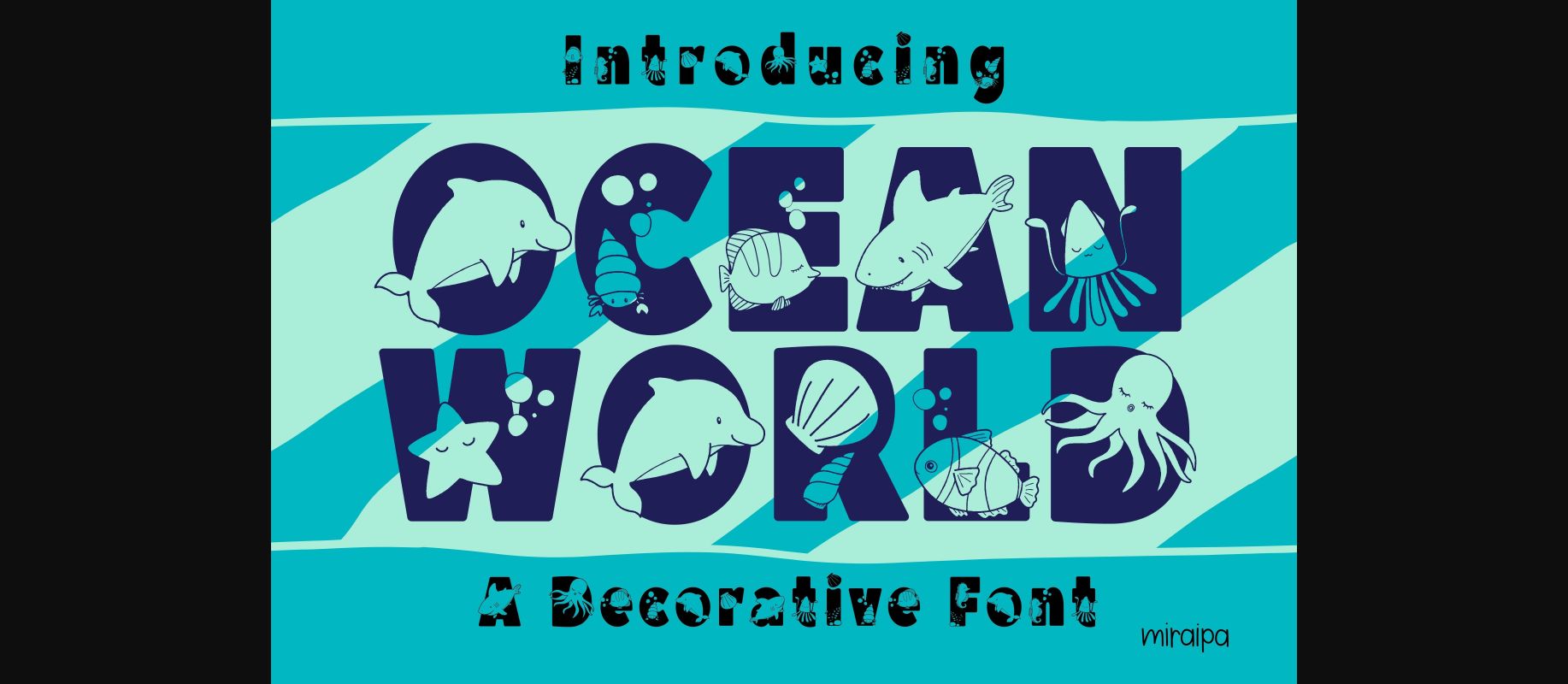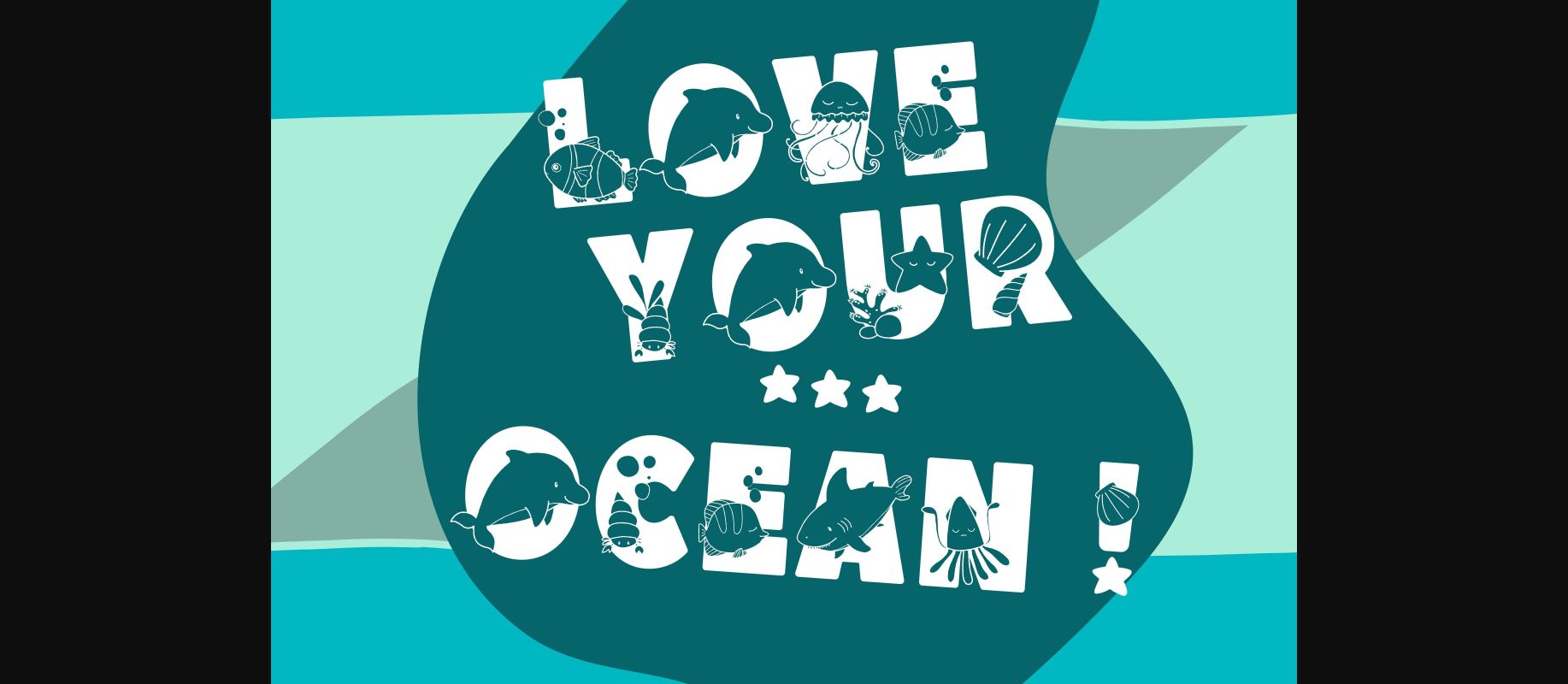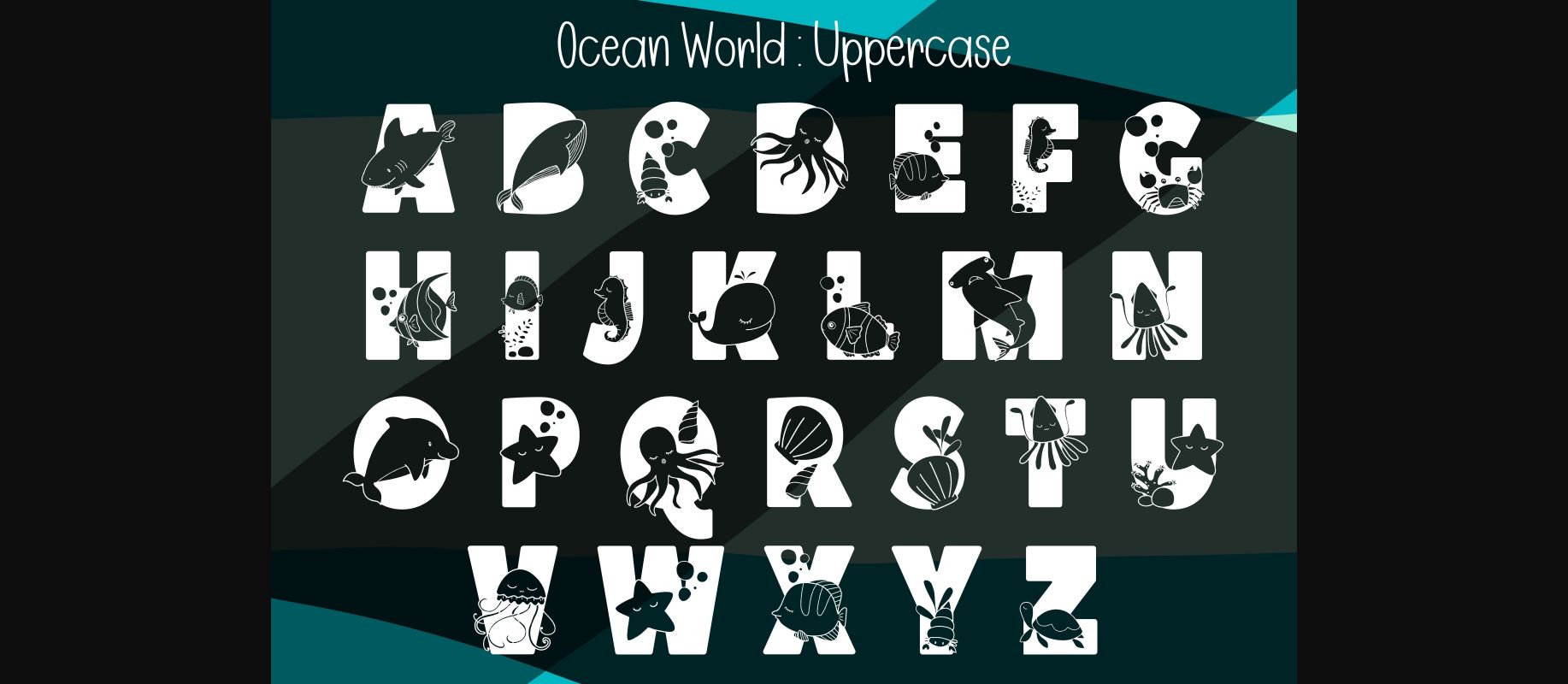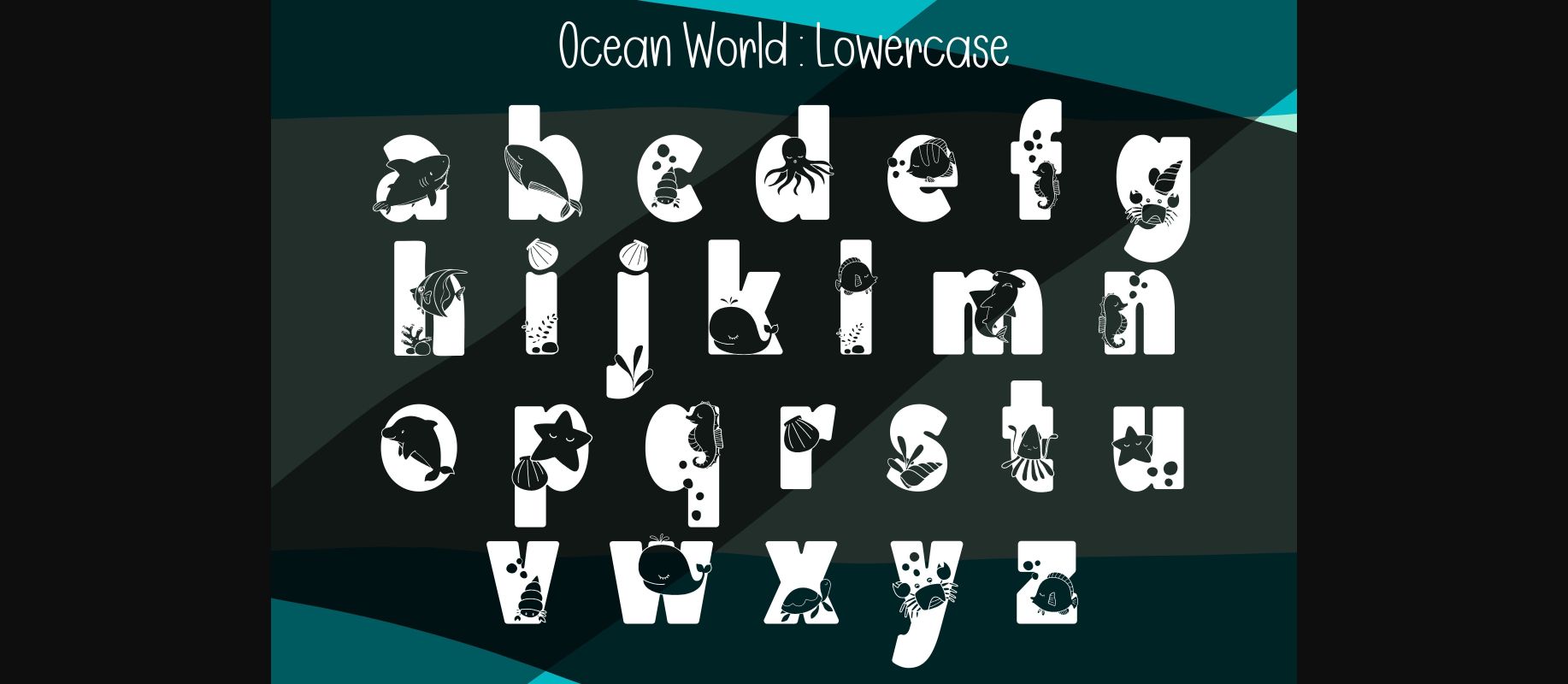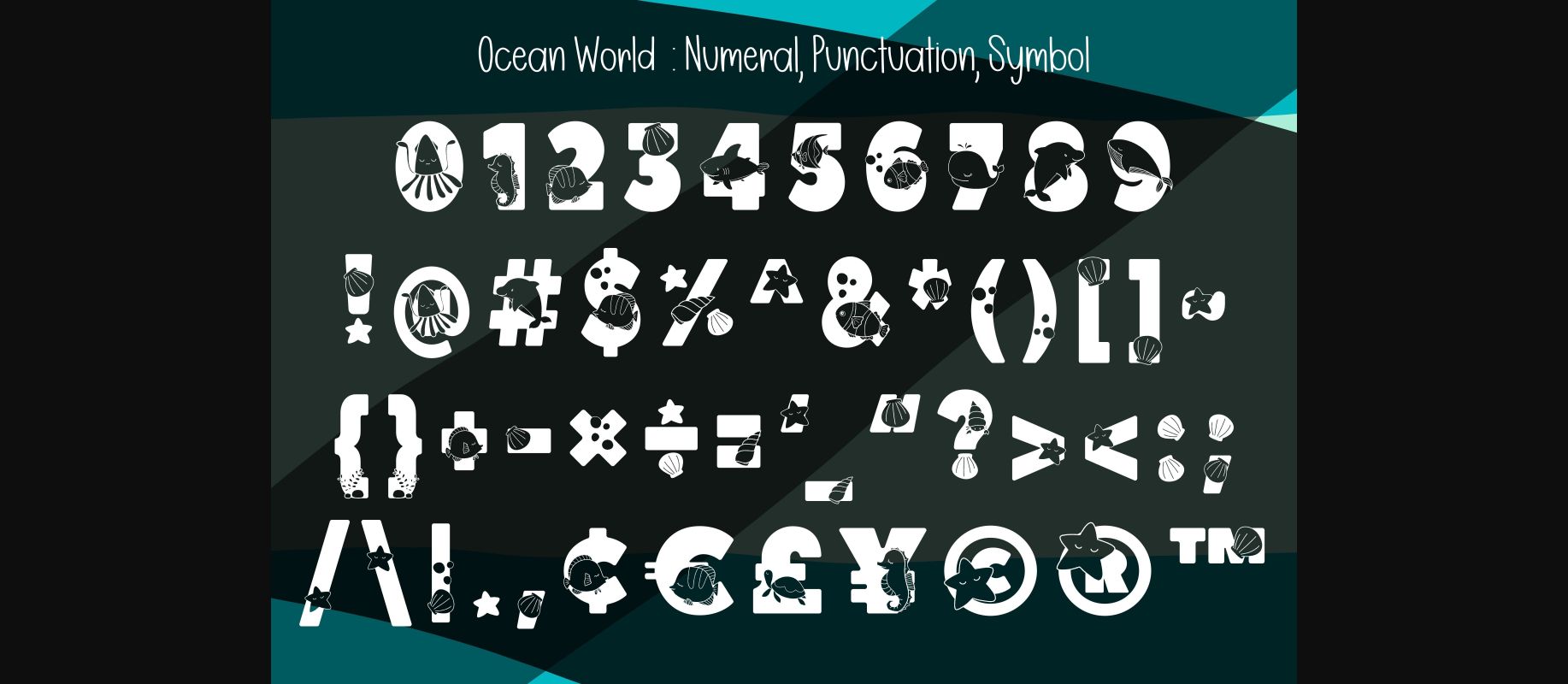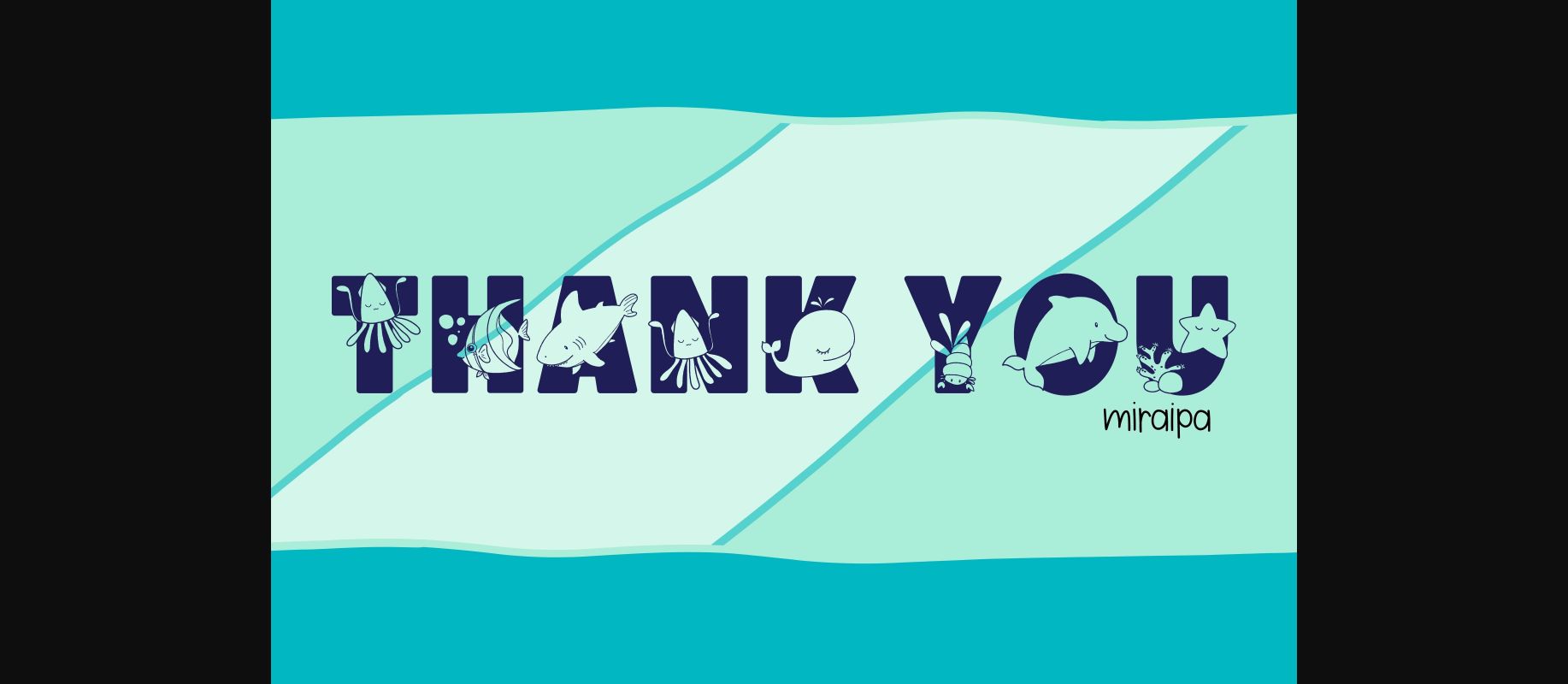
Ocean World Font
About Ocean World Font
Ocean World is a cute and adorable decorative font. Add it to each of your party invitations, swimming gathering, or pretty much any design that requires a touch of youth and joy.